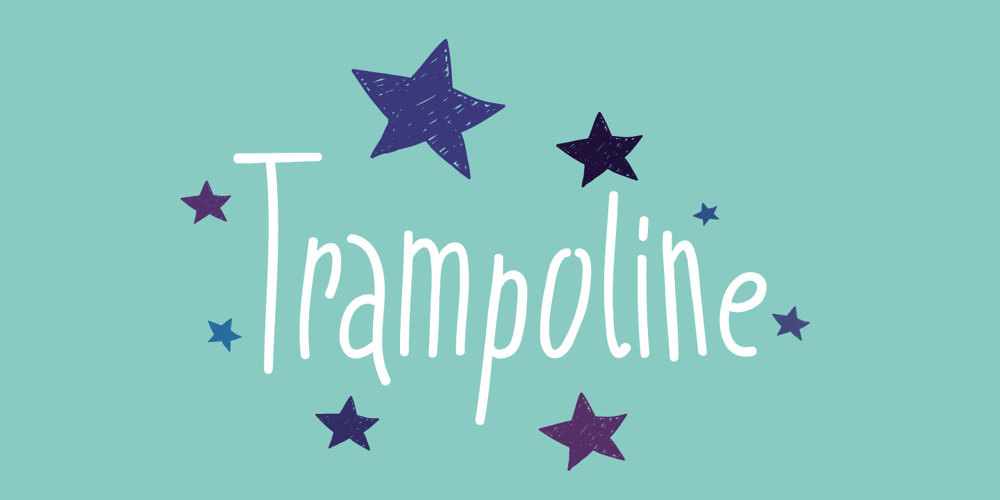
Trampoline
Trampoline font
Trampoline Font Family was designed by Dusan Jelesijevic and published by Tour De Force. Trampoline contains 1 styles and family package options. Trampoline is neat handwriting typeface inspired by requests I’m receiving as designer from people who would like to display dose of human touch in their products and editorials by having an typeface with personality and individuality.